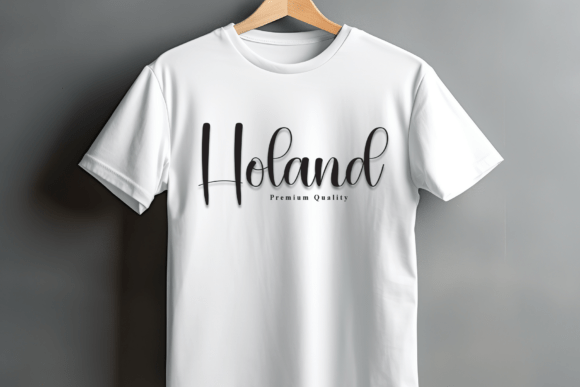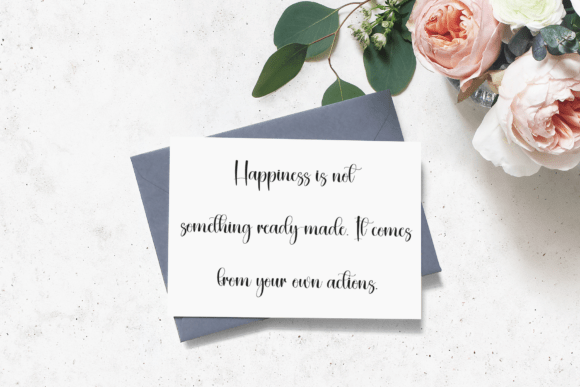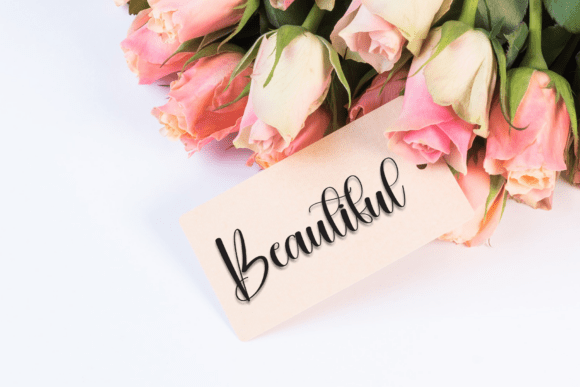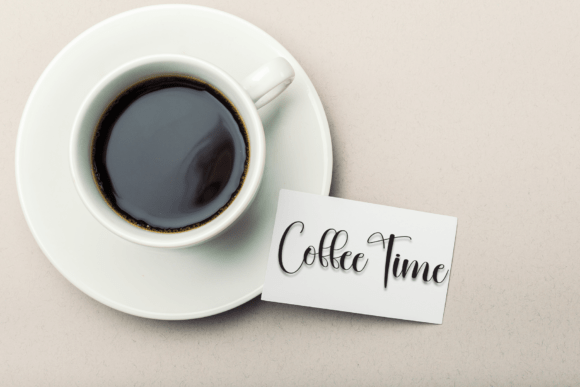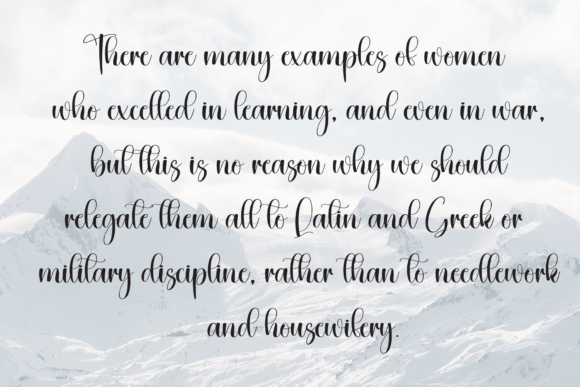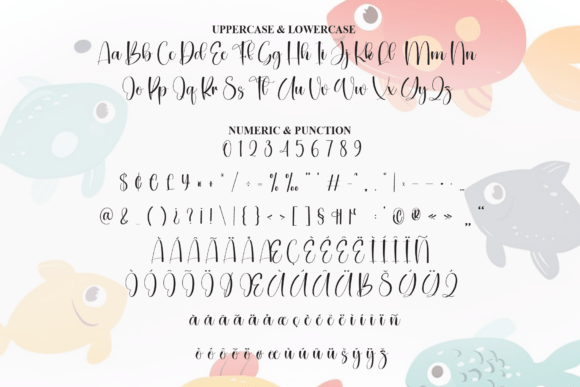
The Cutefish Font: A Sweet Addition to Your Design Toolbox
I’ll never forget the time I was working on a wedding invitation project, and my client asked for a font that would make their guests feel like they’re part of a romantic fairy tale. I scoured the internet, trying out font after font, but nothing seemed quite right. That was until I stumbled upon Cutefish – a beautiful, handwritten script font that captured the warmth and affection I was looking for. In this article, I’ll share my experience with Cutefish, its features, and how to make the most of it in your designs.
A Personal Review of Cutefish
- ✨ Elegant, flowing strokes that give it a romantic feel
- ✅ Highly versatile and perfect for a variety of projects, from wedding invitations to branding
- 💕 The font’s warm and intimate tone makes it ideal for conveying emotions
- 🎨 Beautifully crafted with attention to detail, making it a joy to work with
While Cutefish is an amazing font, there are a few things to keep in mind:
- ⚠️ Some of the more intricate swashes and flourishes might not display correctly on all devices or platforms.
- 🤔 It can be a bit overused, so be mindful of how you pair it with other fonts and design elements.
The Story Behind Cutefish
Cutefish was designed with love and care by a talented typographer who wanted to create a font that would capture the warmth and intimacy of handwritten script. Inspired by classic calligraphy and modern handwriting, Cutefish is the perfect blend of elegance and playfulness.
Q: Is Cutefish suitable for body text?
A: While Cutefish is a beautiful font, it’s best suited for headlines, titles, and short paragraphs. Its elegant strokes and flowing curves make it perfect for display text, but may not be the most readable choice for longer blocks of text.
Q: Does Cutefish support OpenType features?
A: Yes, Cutefish supports OpenType features like ligatures, stylistic alternates, and swashes, allowing you to add more personality and flair to your designs.